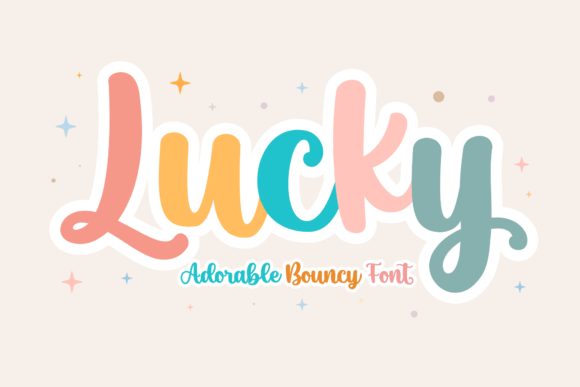
Looking for the best font for vintage design? Look no further than Lucky Font! This gorgeous script font, created by Holydie Studio, is perfect for adding a touch of sweetness and charm to any project.
Lucky Font is a beautiful handwritten font with a versatile style that can be used in a variety of ways. Whether you're creating wedding invitations, designing beautiful stationary art, or just looking to make your social media posts stand out, Lucky Font is the perfect choice.
With its PUA encoding, Lucky Font is incredibly easy to use. You'll have access to all the glyphs and ligatures you need to create beautiful, eye-catching designs in no time.
But Lucky Font isn't just versatile and easy to use – it's also incredibly cute and sweet. Fall in love with its playful style and use it to add a touch of whimsy to any project.